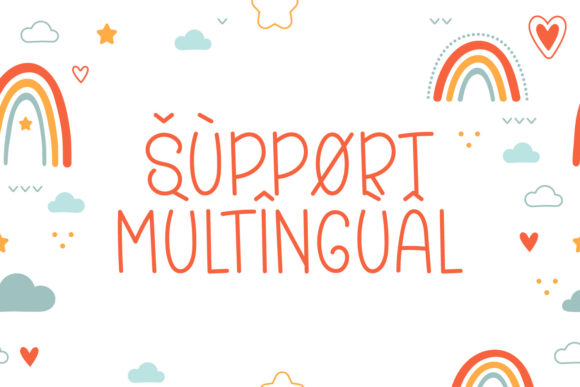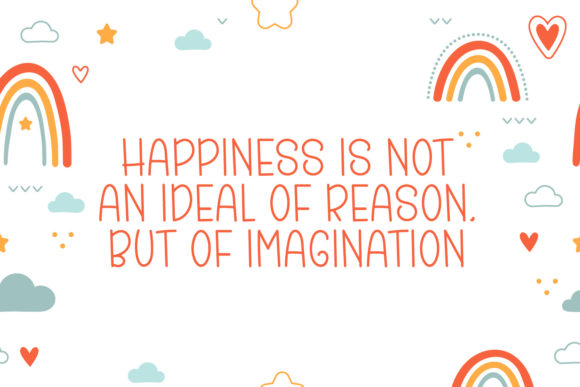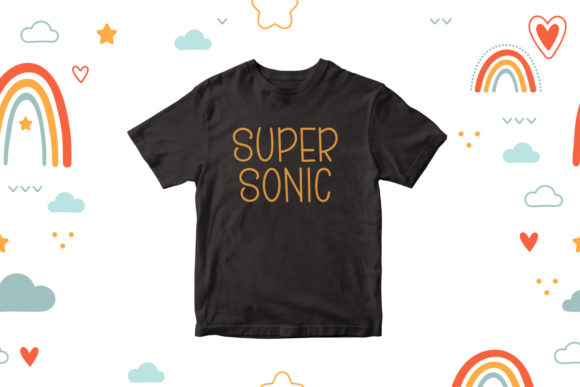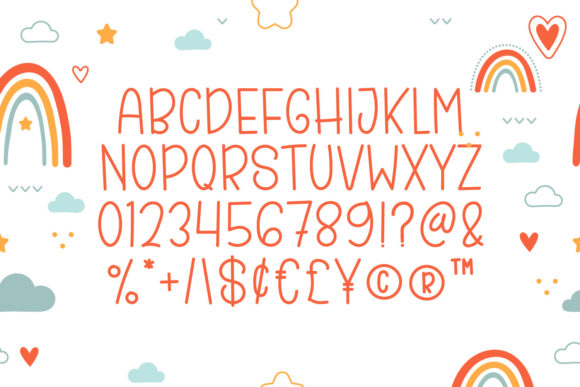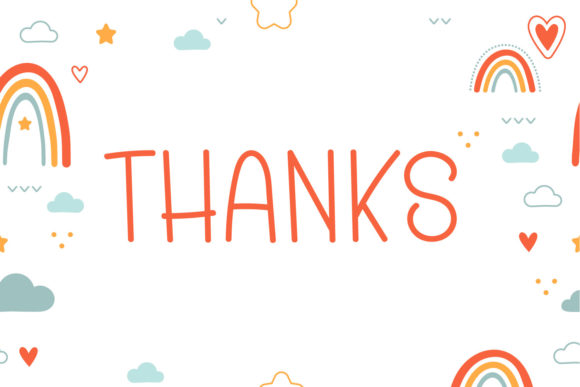
Unlock the Magic of Handwritten Charm
Have you ever found yourself staring at a blank canvas, searching for the perfect spark to ignite your creativity? Maybe you’re designing a birthday card for a little one, crafting a social media post to announce a new project, or simply adding a personal touch to a letter to a loved one. Whatever the occasion, we’ve all been there – seeking that elusive combination of style and personality that sets our creations apart.
Enter the Hello Rainbow Font, a delightful, thin-lettered, and friendly handwritten font that’s sure to bring a smile to your face. With its unique charm, this font has the power to elevate any project, making it an invaluable addition to your font library. Whether you’re a seasoned designer or just starting out, the Hello Rainbow Font is an asset that’s sure to inspire and delight.
Hello Rainbow Font Key Features
- Unique Color-Changing Effect: This font features a dynamic color-changing effect, where the letters change colors as you type, creating a visually appealing and engaging experience.
- Font Styles: The Hello Rainbow Font includes a variety of font styles, including Regular, Bold, Italic, and Bold Italic, providing users with flexibility and creativity.
- Color Palette: The font features a vibrant and customizable color palette, allowing users to choose from a range of colors to match their brand or design aesthetic.
Hello Rainbow Font Review
I recently had the chance to work with the Hello Rainbow Font, and I must say it’s a unique addition to any design project. ✨ The font’s playful, hand-drawn style is sure to capture attention and add a touch of whimsy to your designs.
Some of the things that work well with the Hello Rainbow Font include:
- Its versatility – the font works well for both digital and print projects
- Its bold, vibrant colors, which are sure to make your designs stand out
- Its customizable nature, allowing you to adjust the colors and styles to fit your project’s needs
- The font may not be suitable for projects that require a more professional or serious tone
- The bold, hand-drawn style may not be legible at smaller font sizes
- The font may require additional styling to ensure it looks its best across different platforms
Overall, I think the Hello Rainbow Font is a fun and creative addition to any design project. While it may not be the best fit for every project, it’s definitely worth considering for projects that require a playful, attention-grabbing touch. ⚠️ Just be sure to weigh the pros and cons carefully before making your decision.
The Hello Rainbow Font is ideal for:
- Celebratory and festive designs.
- Children’s educational materials.
- Wedding and party invitations.
To get the most out of the Hello Rainbow Font, remember:
- Combine the font with other creative elements, such as graphics and illustrations.
- Use the font in creative and unexpected ways, such as in headings or titles.
- Choose a bright background color to contrast with the font.
- Use the font for the main message, such as “Happy Birthday!” or “Join the Party!”
- Add illustrations or graphics around the text to create a whimsical feel.
- Use bold, colorful shapes to create a sense of movement and energy.
- Add glitter or confetti elements to make the design more festive.
- Choose a bright, pastel background color to complement the font.